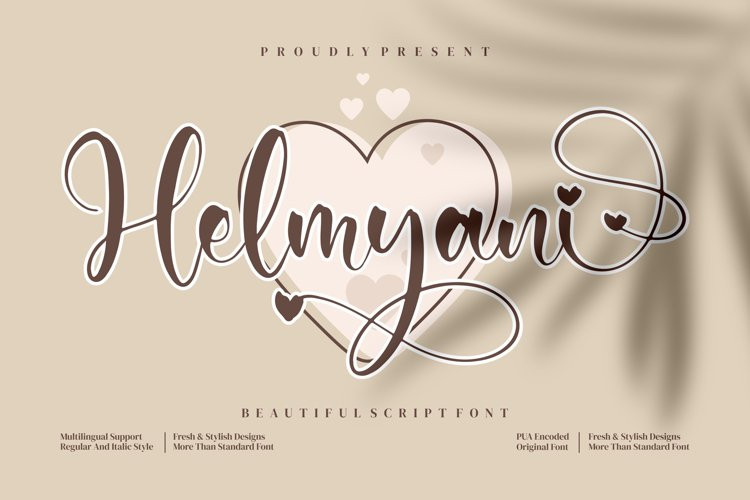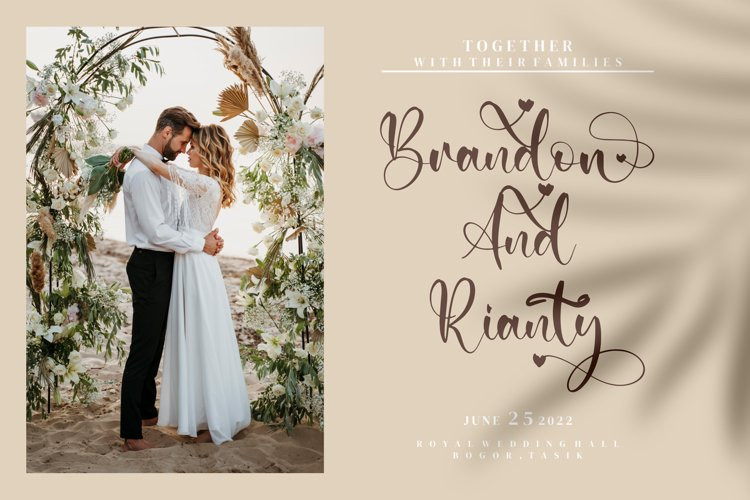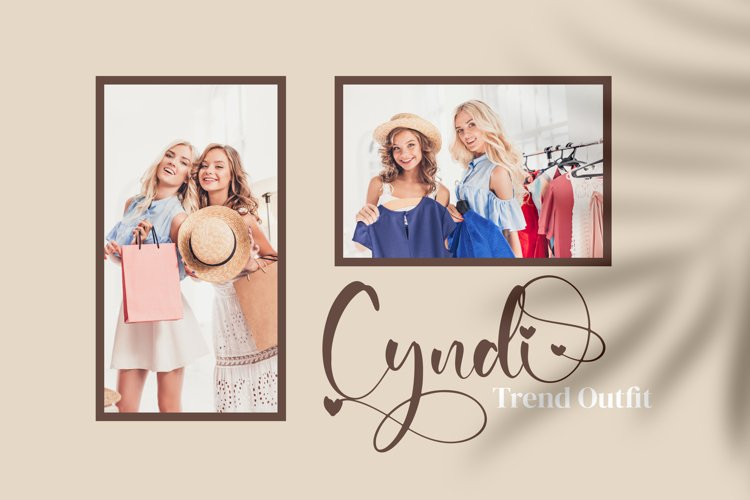
Helmyani Font
Helmyani FontHelmyani – Beautiful Script Font, from Integritype Studio, is a premium Beautiful Script font, suitable for any projects such as: logos, branding projects, homeware designs, product packaging, mugs, quotes, posters, shopping bags, t-shirts, book covers, name card, invitation cards, greeting cards, label, photography, watermark, special events, and all your other luxury projects that need a premium signature taste.